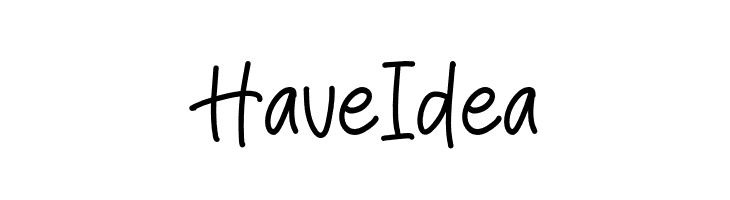
A bold slab serif font with strong, block-like characters and wide spacing.
A modern, dotted font with a geometric and digital style.
A playful, hand-drawn font with bold, rounded characters.
A playful, handwritten-style font with bold, slanted characters.
A minimalist, thin, and modern font with elongated strokes and a sleek appearance.
A playful, hand-drawn font with bold, rounded characters and a whimsical style.
Playful, hand-drawn rounded font.
A bold, geometric font with sharp angles and a modern aesthetic.
A bold, geometric font with a distinctive inline style, ideal for modern and impactful designs.
A bold, playful font with a hand-drawn, whimsical style.
An ornate and decorative font with calligraphic influences, perfect for elegant designs.
A bold, artistic font with dynamic curves and strong lines.
A bold, geometric font with a futuristic, digital aesthetic.
A bold, geometric 3D font with a futuristic digital appearance.
A bold, 3D italic font with a futuristic and geometric design.
A bold, geometric font with a futuristic, sci-fi style.
A bold, futuristic italic font with geometric outlines and a sci-fi aesthetic.
A bold, geometric font with a futuristic and digital style.
A bold, expanded, and italicized futuristic font with geometric, angular characters.
A bold, italicized font with a futuristic, angular design.
A bold, geometric font with a futuristic and angular design.
A bold, modern sans-serif font with clean lines and strong presence.
Ancient cuneiform-inspired font with geometric, wedge-shaped glyphs.
A bold, distressed font with a vintage, textured appearance.
Casual, quirky handwritten style with irregular shapes.
A playful, handwritten font with an informal and friendly style.
A bold, heavy font with thick strokes and a strong, impactful presence.
A bold, 3D-style font with strong outlines and a blocky appearance.
Bold, 3D italic font with outlined characters and a modern, dynamic style.